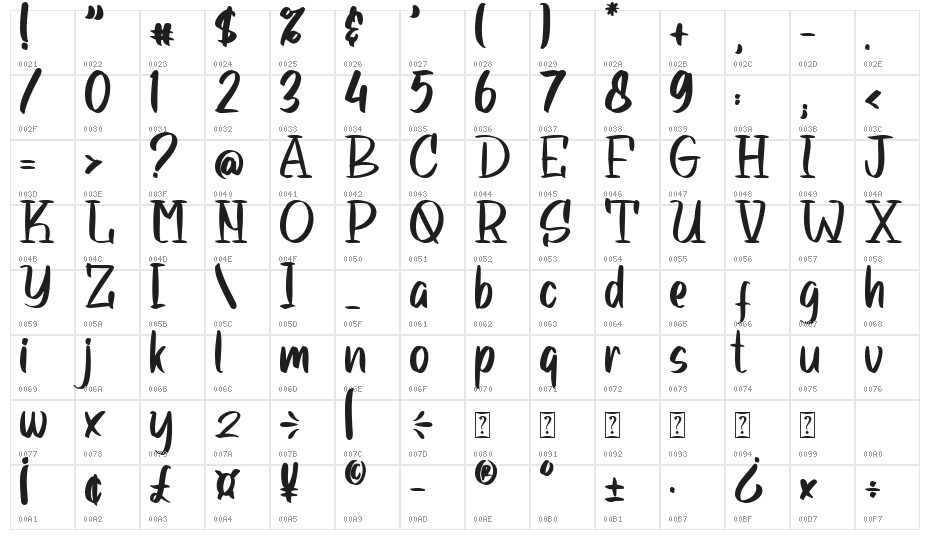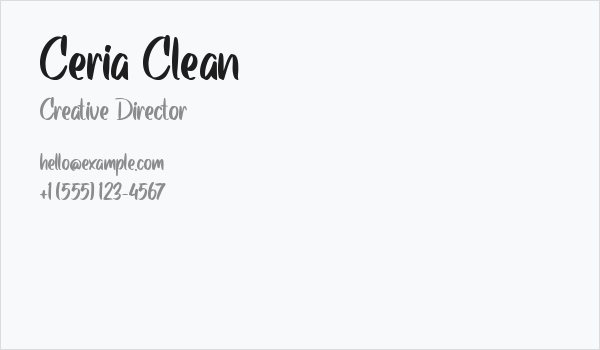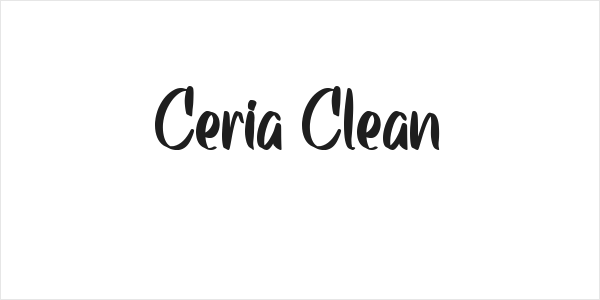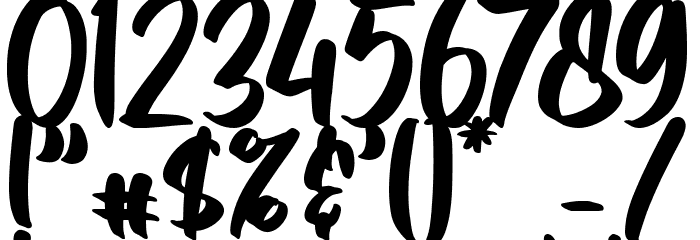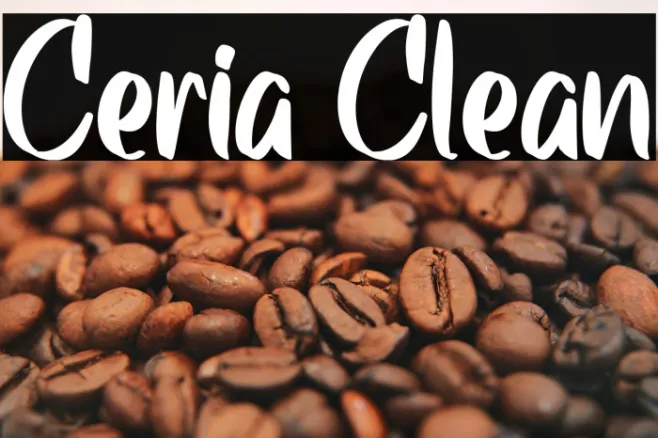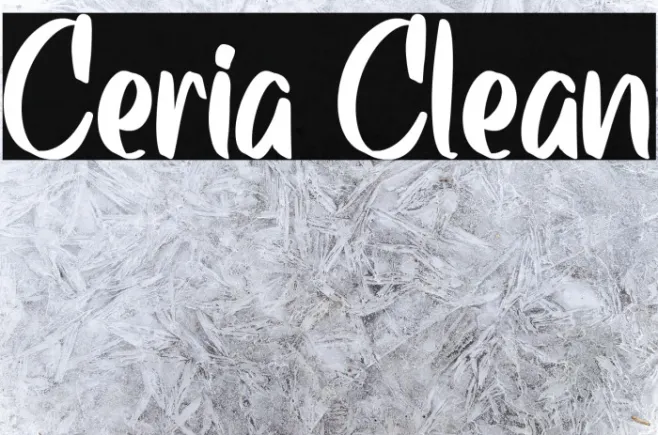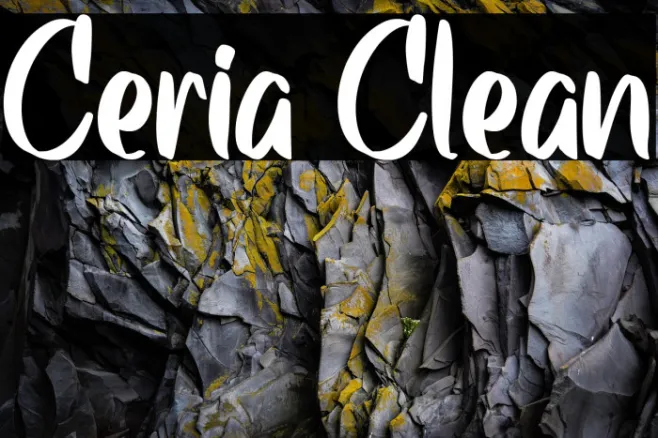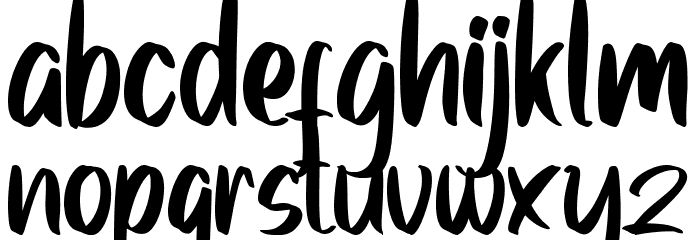
Ceria Clean Font
Ceria Clean Description
This font features a playful and dynamic style with a handwritten appearance. The uppercase letters have a whimsical, slightly irregular form, while the lowercase letters are bold and expressive, creating a lively and energetic feel. The numbers and special characters maintain this playful aesthetic, making the font suitable for creative and informal projects. The strokes are thick and bold, providing a strong visual impact. The overall design is cohesive, with a consistent flow and rhythm throughout the character set.
| Proposed Projects | Ideal for greeting cards, children's books, playful branding, and creative posters. |